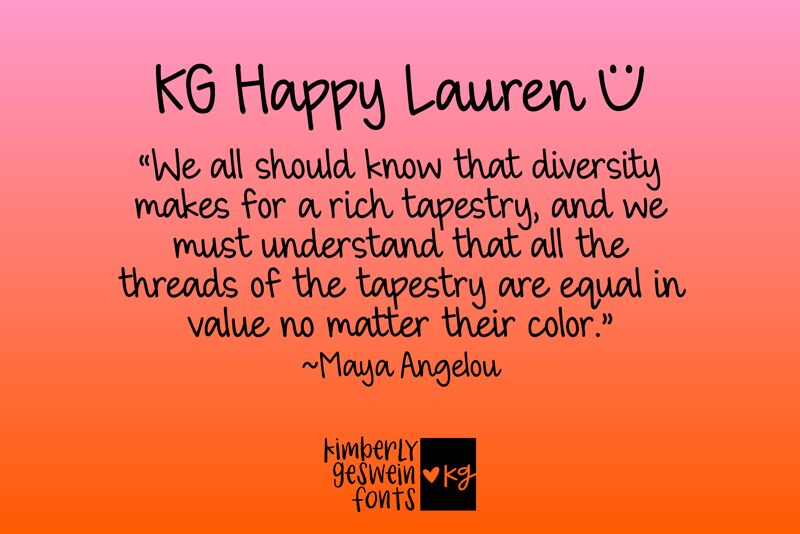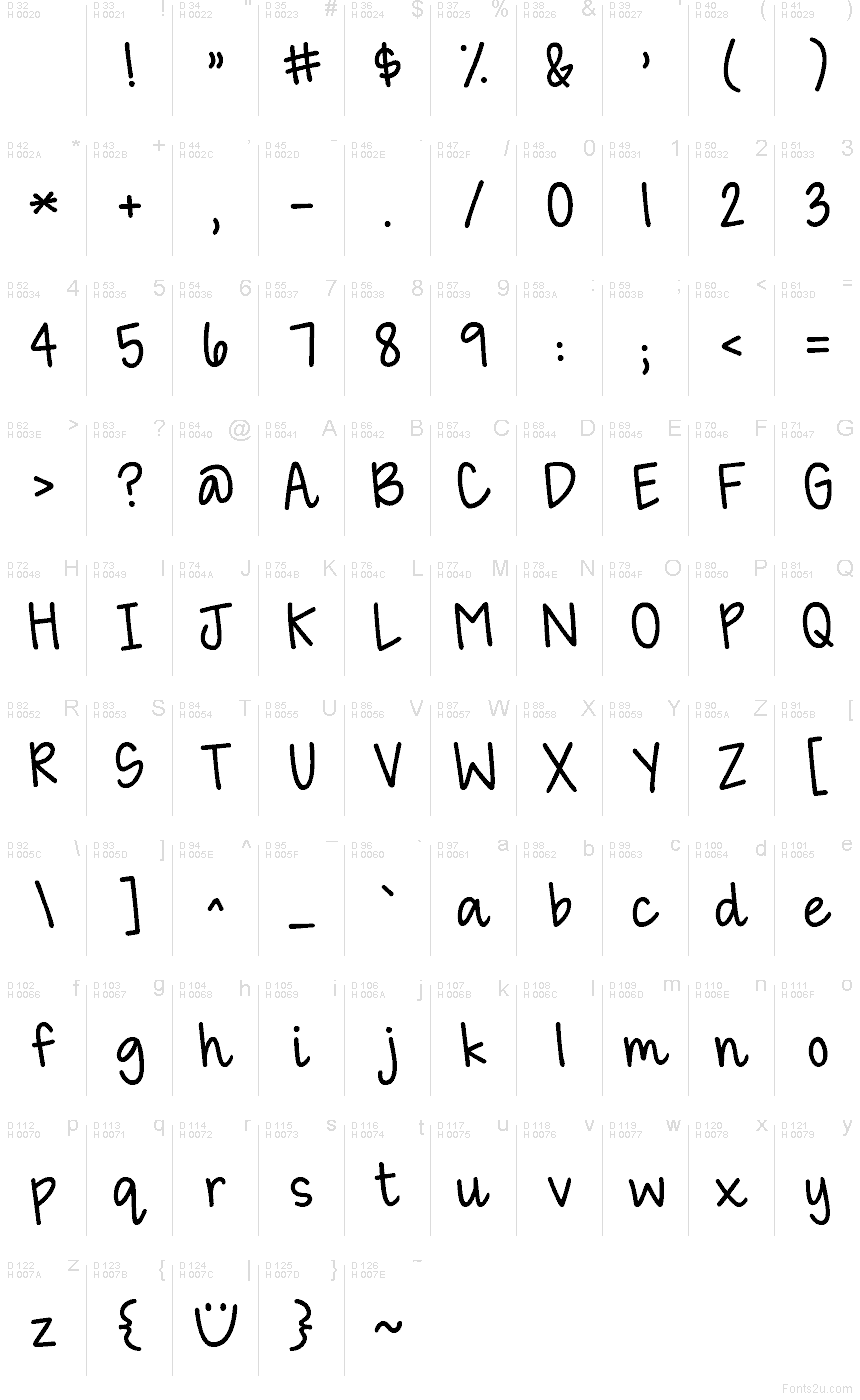
KG Happy Lauren
KG Happy Lauren font by Kimberly Geswein is a free handwritten font, with a typeface feel that’s casual without getting sloppy. The strokes look like a confident marker line—tall, slightly bouncy, and nicely spaced—so words stay readable even when you stack a few lines. It has that classroom-note warmth, like a quick label on a folder or a cheerful header on a worksheet.
Using KG Happy Lauren, try it on teacher resources, kids’ crafts, planners, quote graphics, stickers, classroom posters, and friendly social posts. This free font also works beautifully for simple packaging or small shop signage when you want approachable energy. Pair it with a clean sans (think something neutral and airy) and give it a touch of extra line spacing so the playful rhythm can breathe.